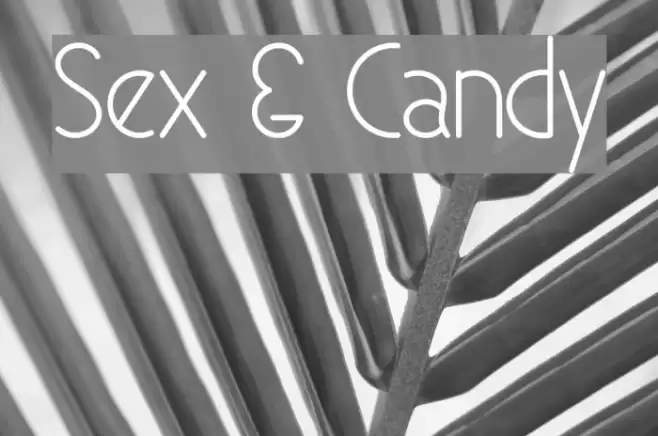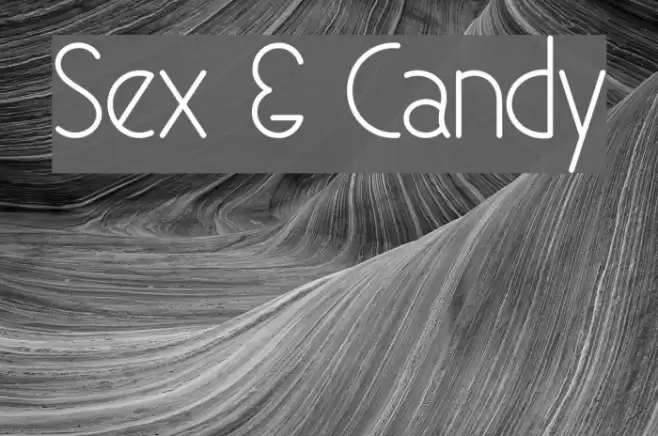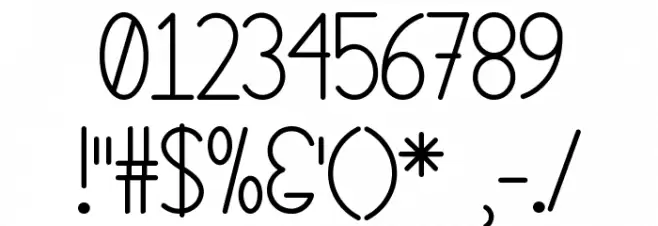
Sex & Candy Font
Sex & Candy Description
This font features a playful and modern aesthetic with clean, rounded lines and a consistent stroke width. The characters are slightly elongated, giving them a unique, airy appearance. The uppercase letters maintain a uniform height, while the lowercase letters are designed with a subtle, whimsical flair. The numerals are clear and easy to read, matching the overall style of the alphabet. Special characters are integrated seamlessly, maintaining the font's cohesive look. This font's simplicity and charm make it versatile for various design applications.
A playful, modern font with clean, rounded lines and a consistent stroke width from Uncategorized fonts.